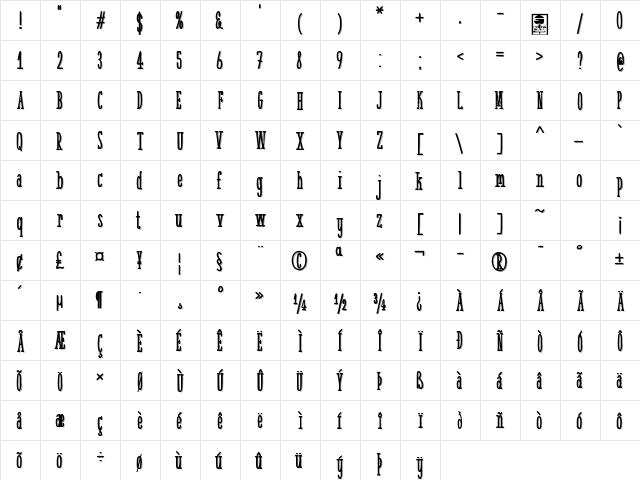
White Festive Shadow Demo Regular
Design Context for White Festive Shadow Demo Typeface
White Festive Shadow Demo is built around its visual character rather than neutral utility — its distinctive forms are designed to make an impression at display sizes.
Dating back to 2016, this typeface is available in OpenType (OTF) format.
Font Pairing: Pair with a clean neutral sans-serif for body copy to let White Festive Shadow Demo's character lead without overwhelming the composition.
Pro Tip: Treat White Festive Shadow Demo as the centrepiece of your typographic hierarchy. One strong heading set in a decorative face can carry an entire layout.